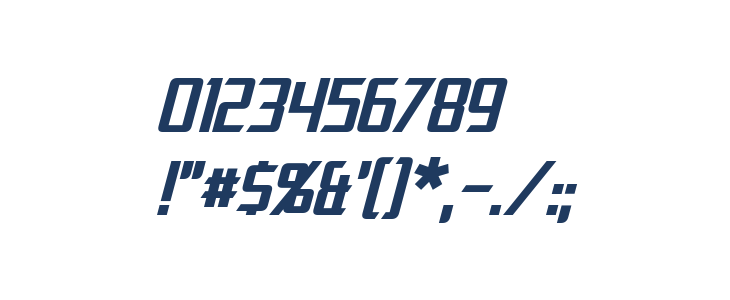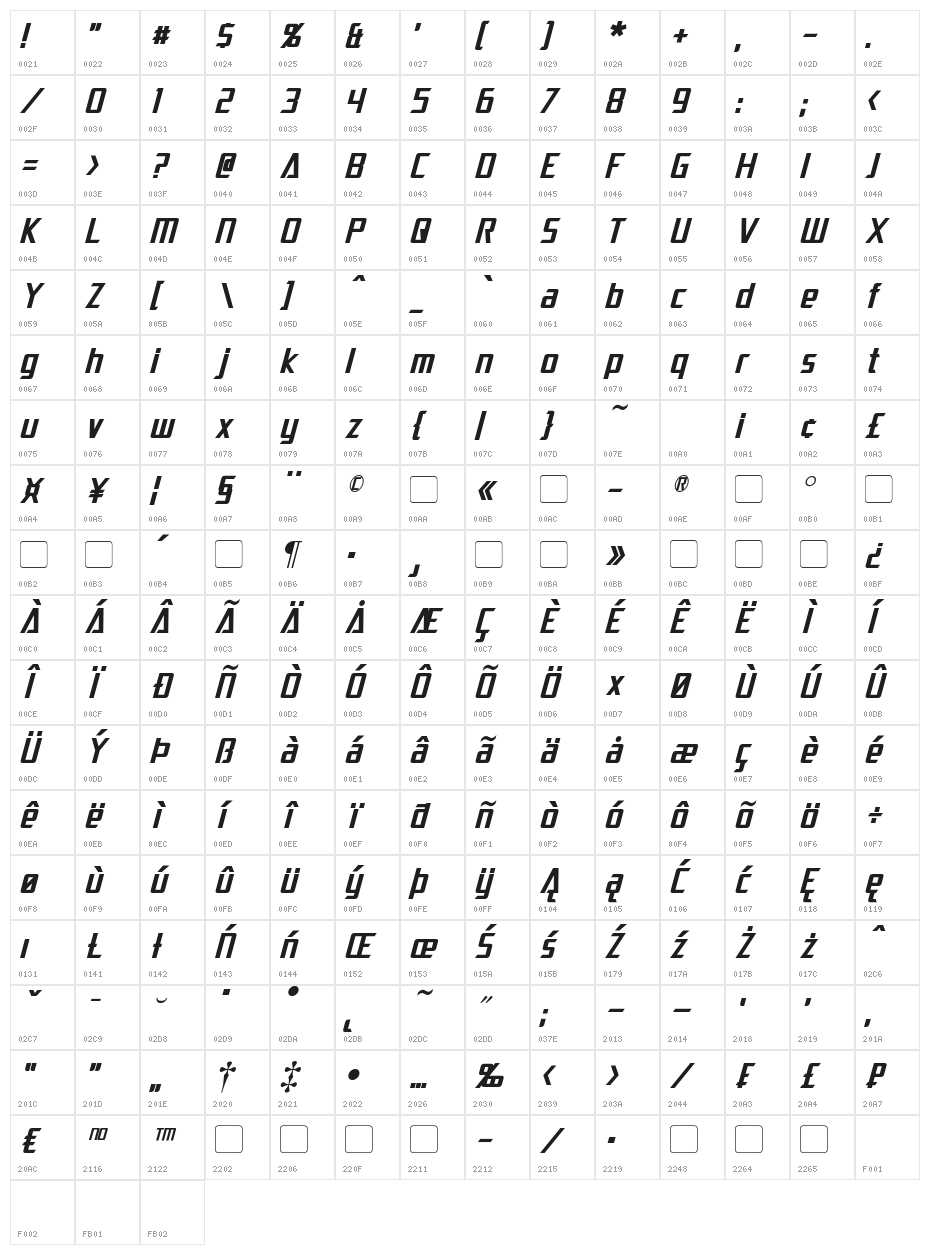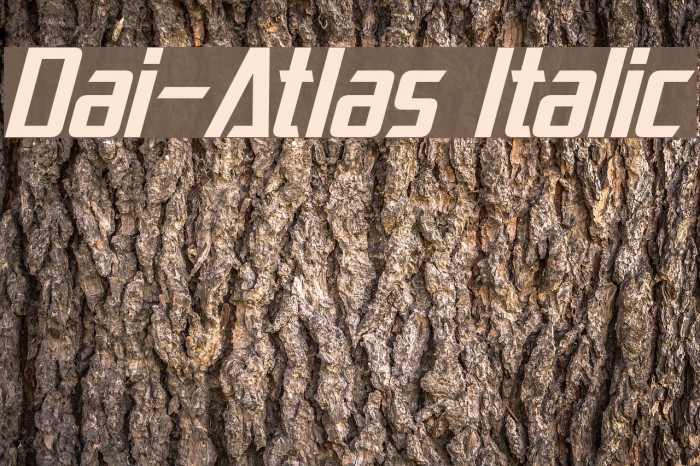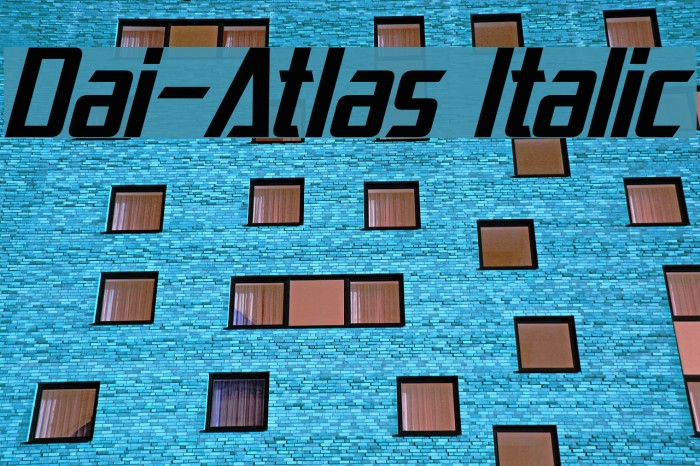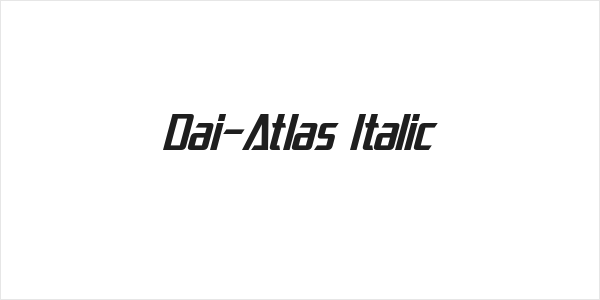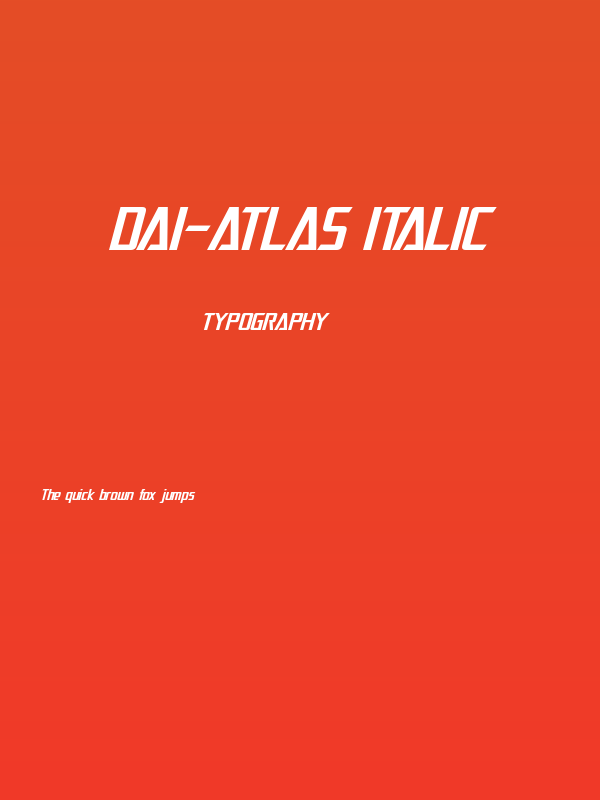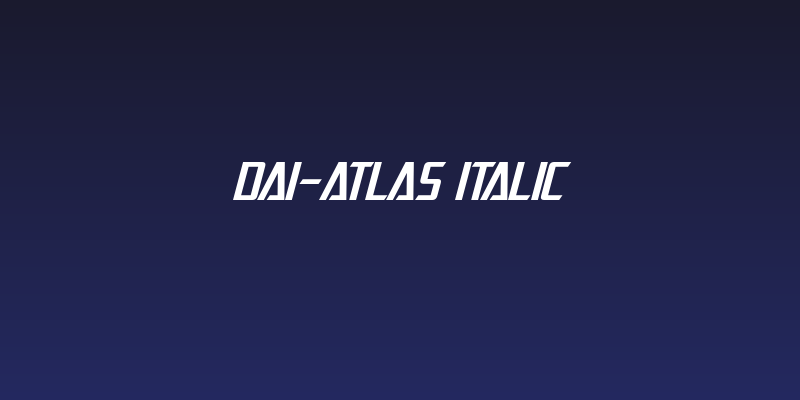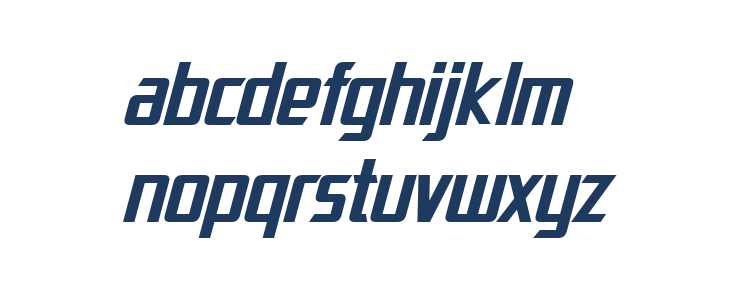
Dai-Atlas Italic Font
Dai-Atlas Italic Description
This font features a dynamic and modern italic style with sharp, angular edges and a forward-leaning posture. The characters are bold and impactful, with a consistent slant that adds a sense of motion and urgency. The uppercase and lowercase letters maintain a uniform height, contributing to a cohesive and streamlined appearance. The numerals and special characters are designed to match the overall aesthetic, ensuring visual harmony across all elements. The font's geometric structure and clean lines make it suitable for contemporary design projects.
| Proposed Projects | Ideal for sports branding, dynamic posters, modern advertising, and tech-related designs. |